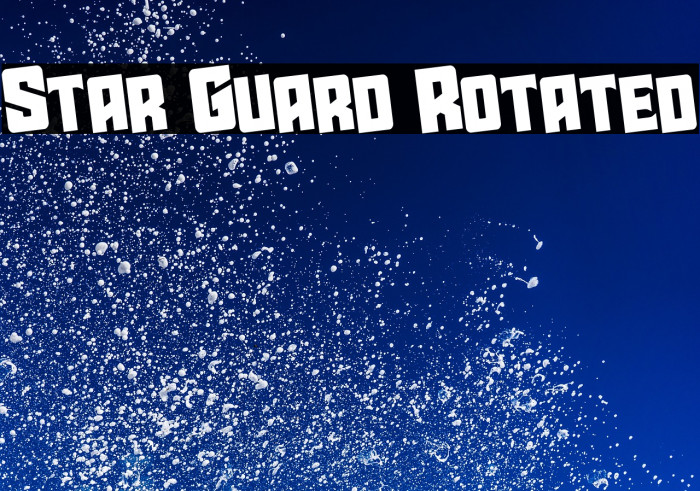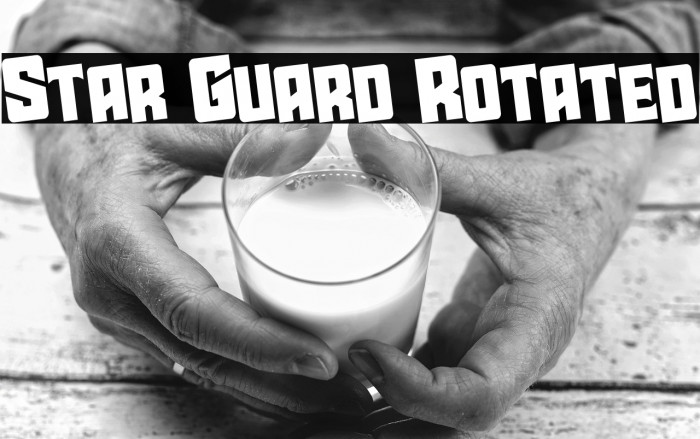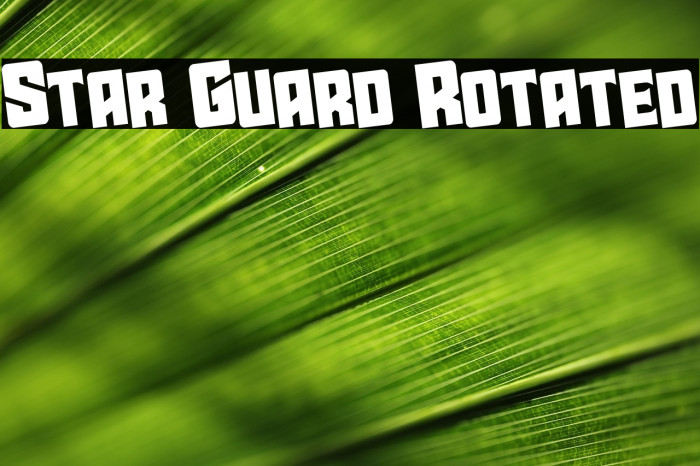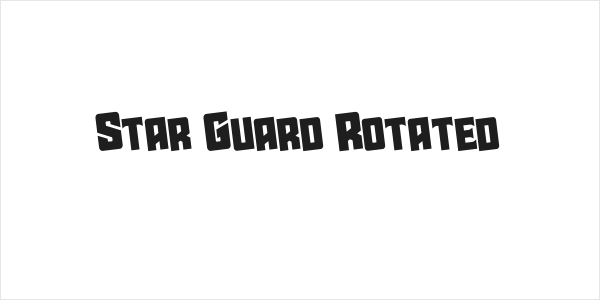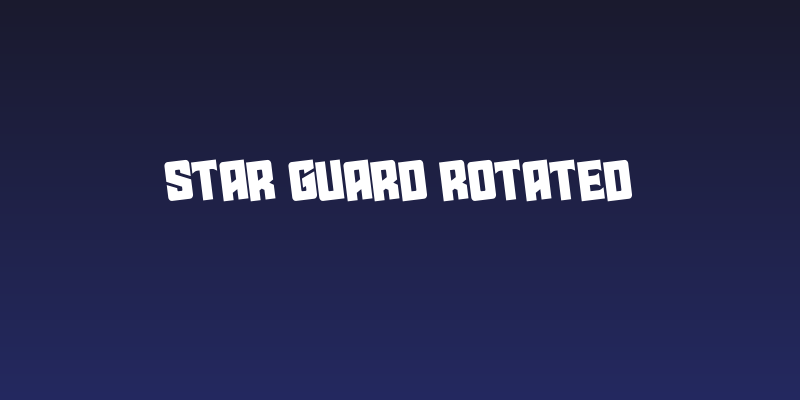
Star Guard Rotated Font
Star Guard Rotated Description
This font features a bold, angular design with a strong geometric influence. The characters are heavily stylized, with sharp edges and a blocky appearance, giving it a futuristic and dynamic feel. The uppercase and lowercase letters maintain a consistent weight, creating a uniform look across the alphabet. Numbers and special characters follow the same design principles, ensuring cohesion throughout the typeface. The font's unique style makes it stand out, suitable for projects that require a bold statement.
| Proposed Projects | Ideal for video game titles, movie posters, branding for tech companies, and any project needing a bold, modern aesthetic. |